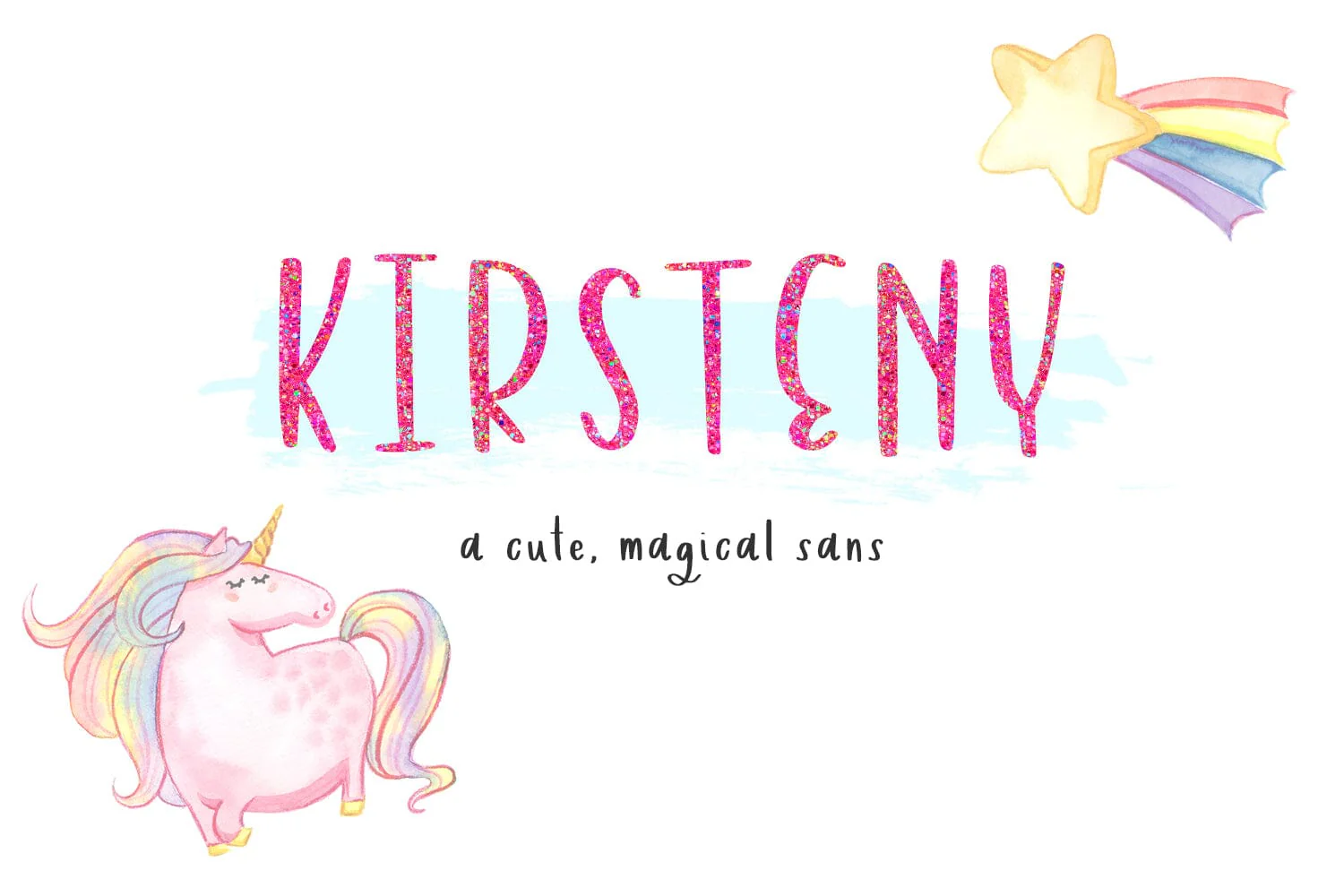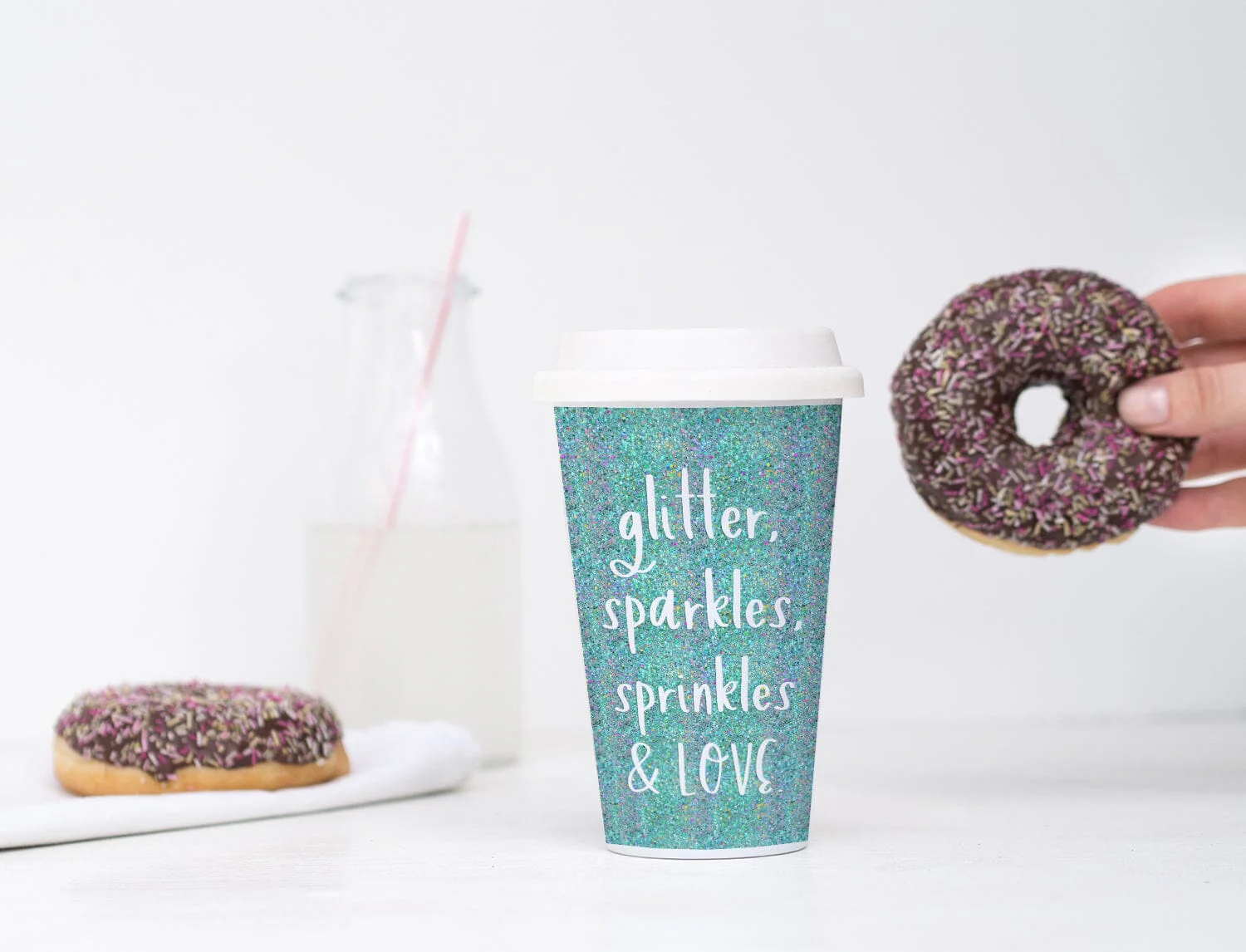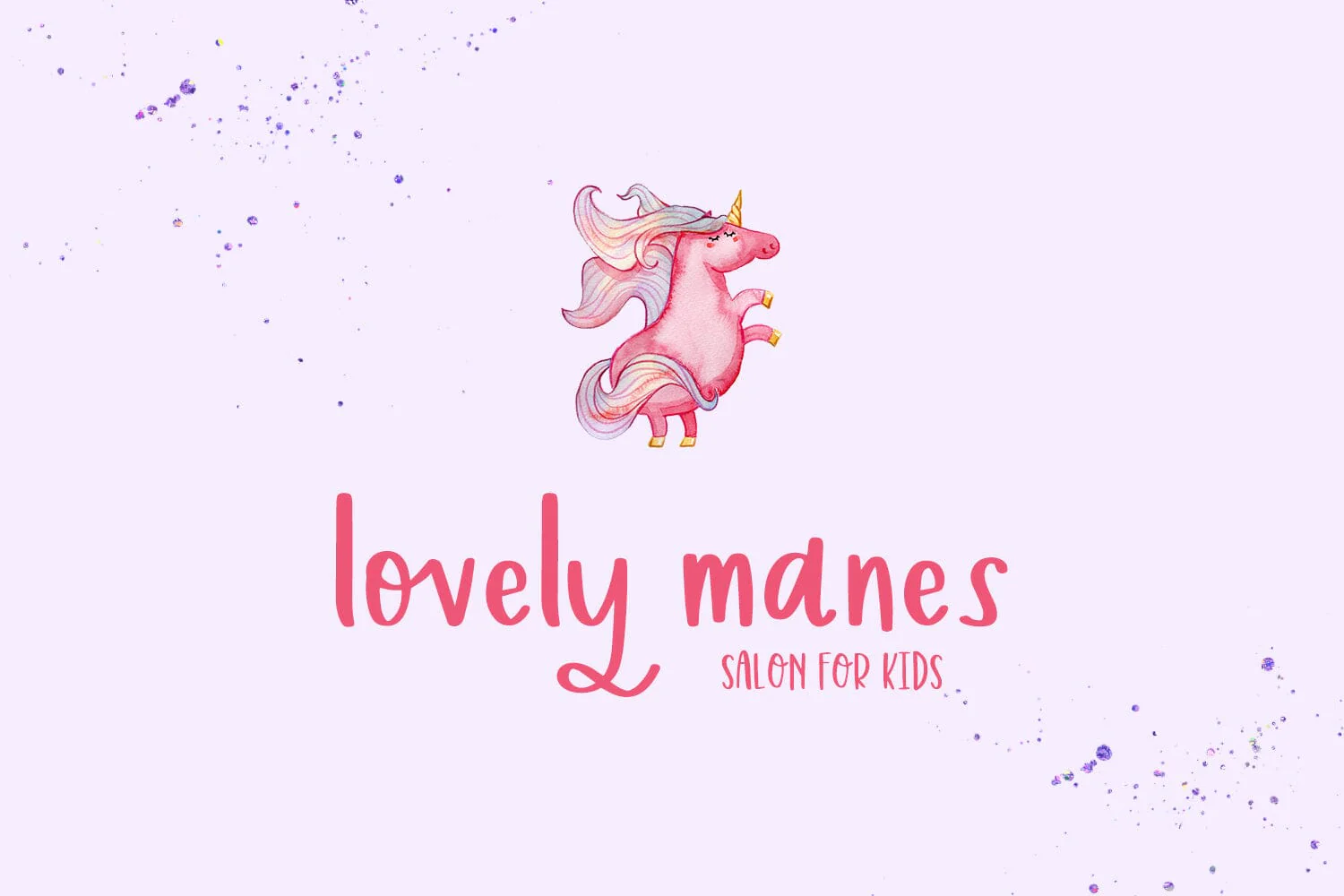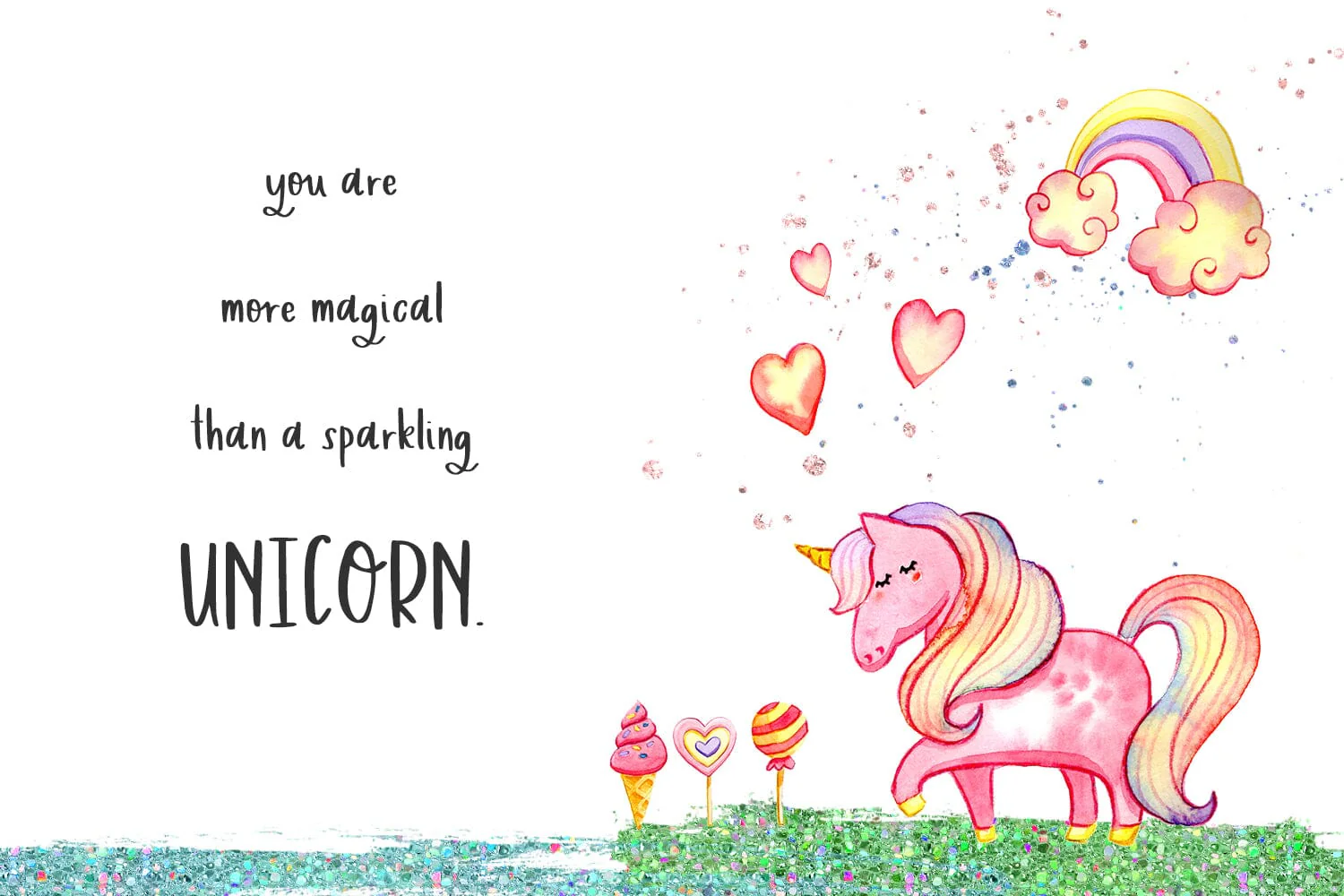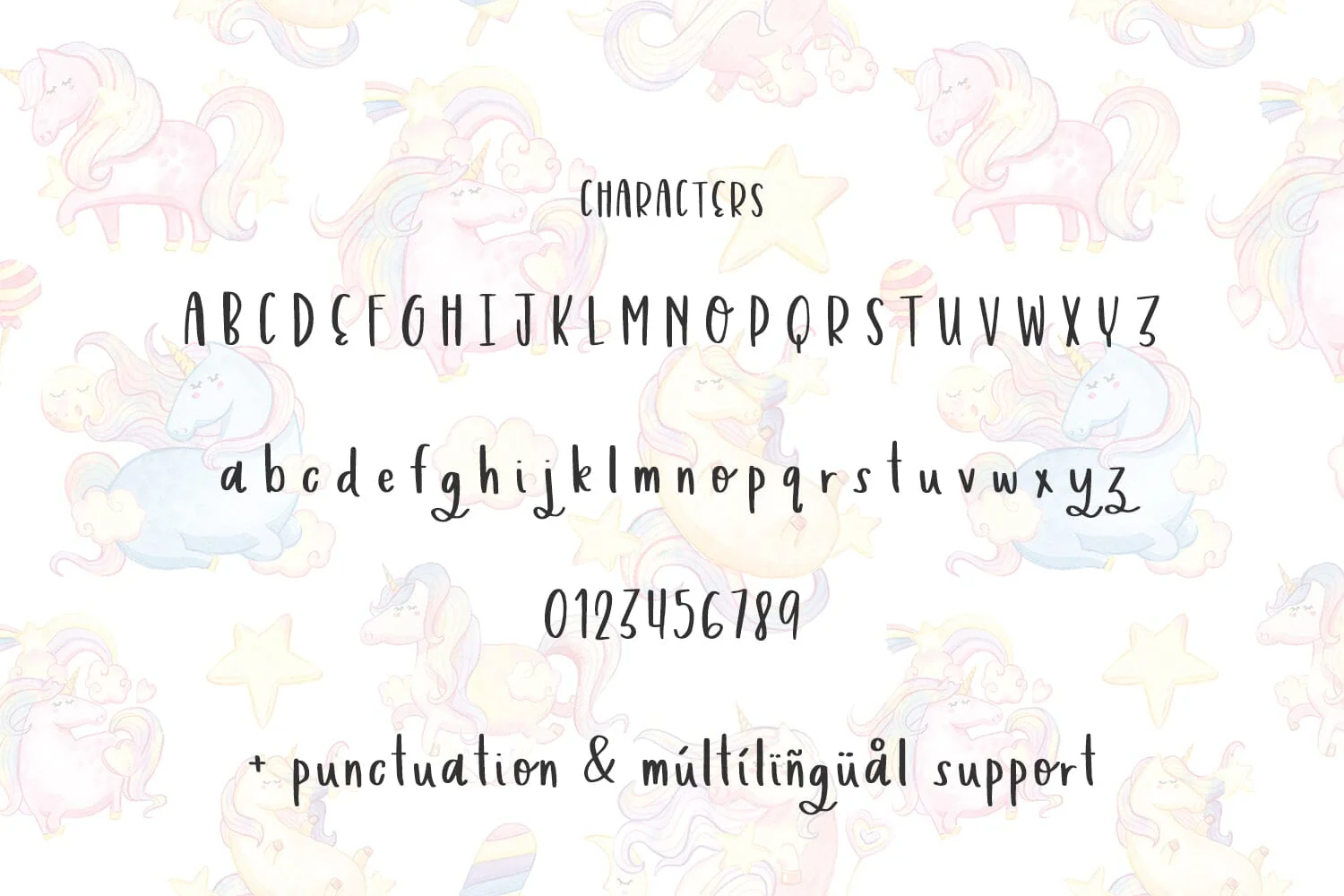
Kirsteny Hand-lettered Sans Font
Kirsteny is a totes adorbs handwritten font full of spunk & personality for your next branding, quote, or other graphic design project.